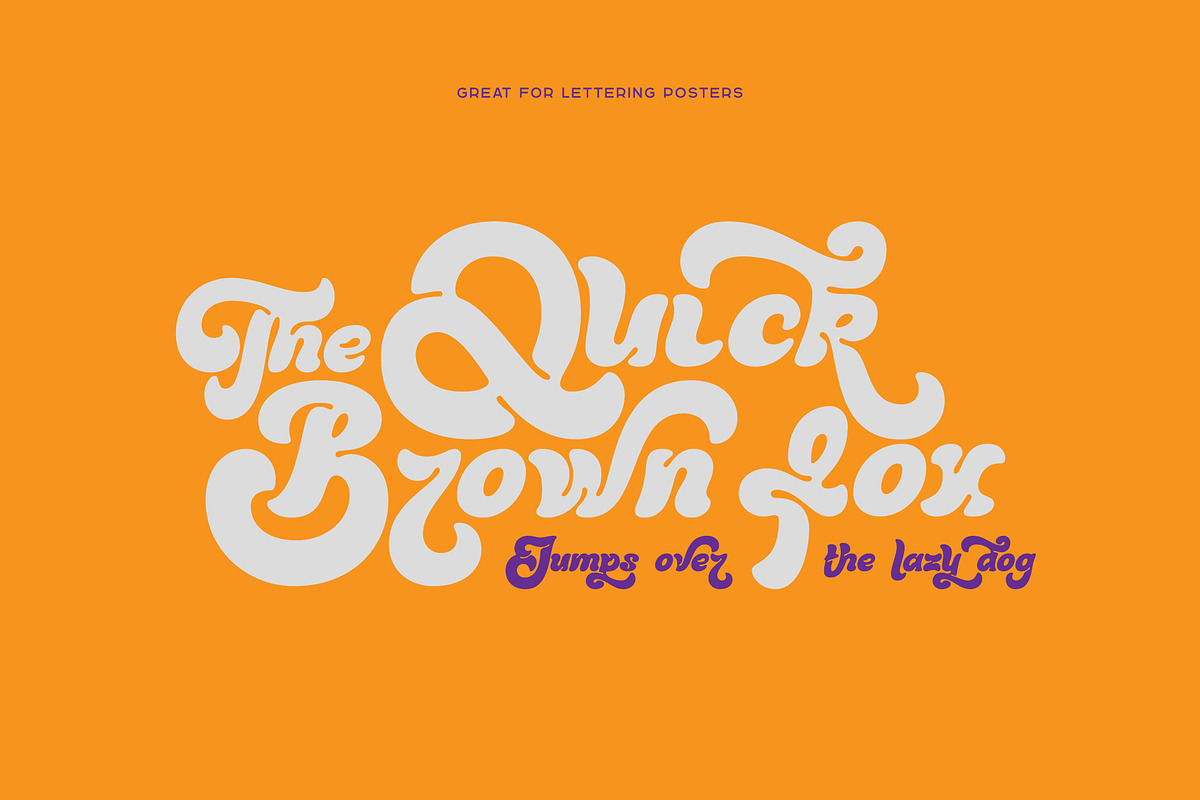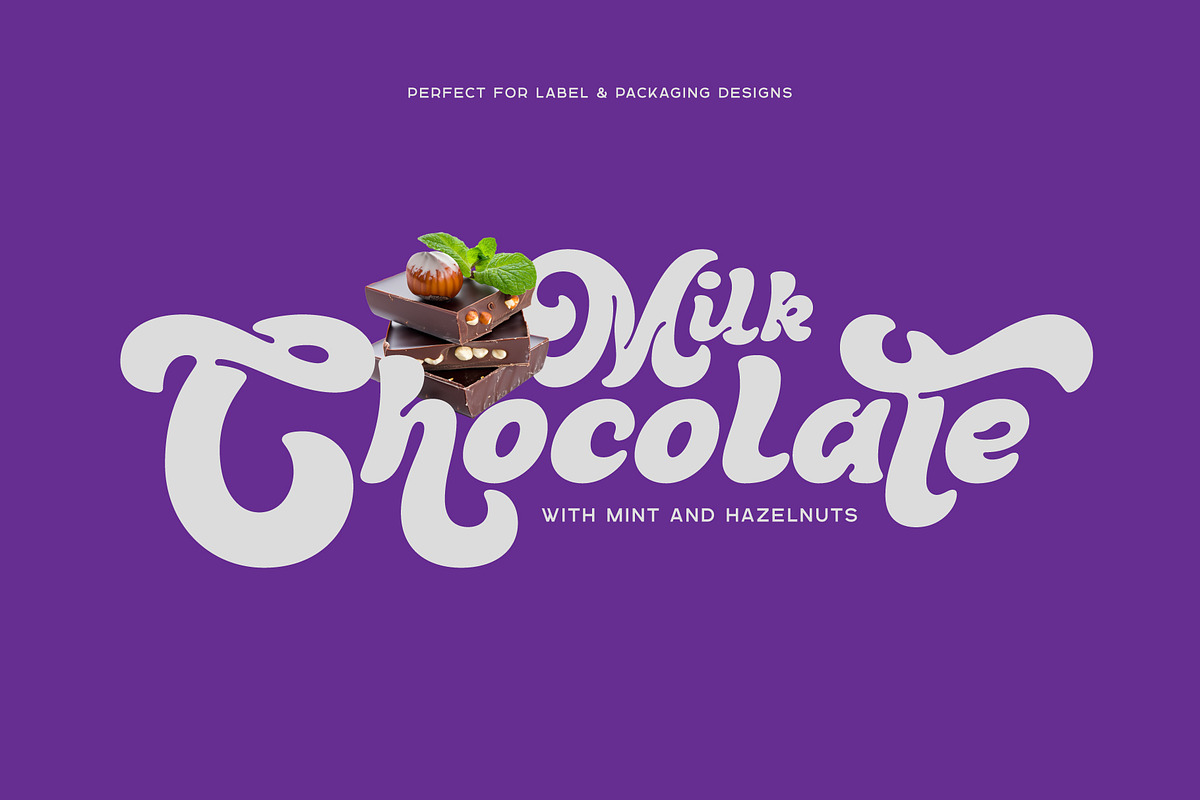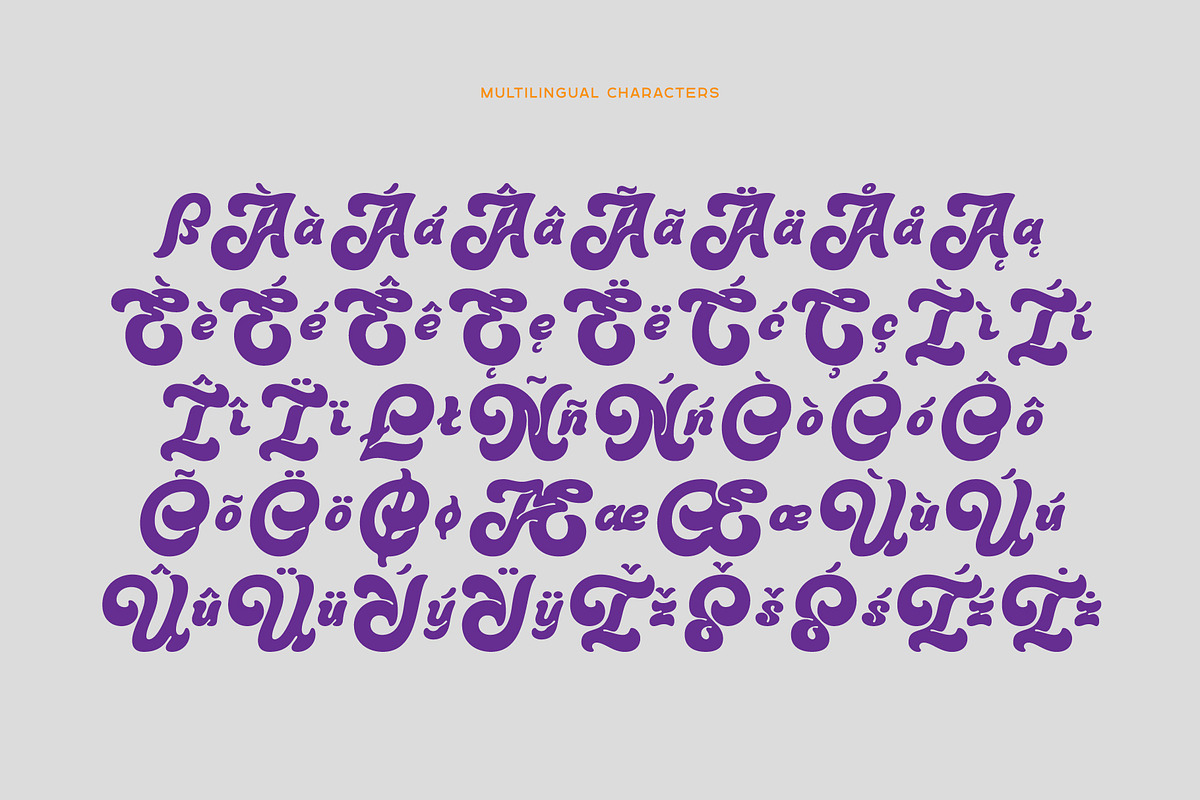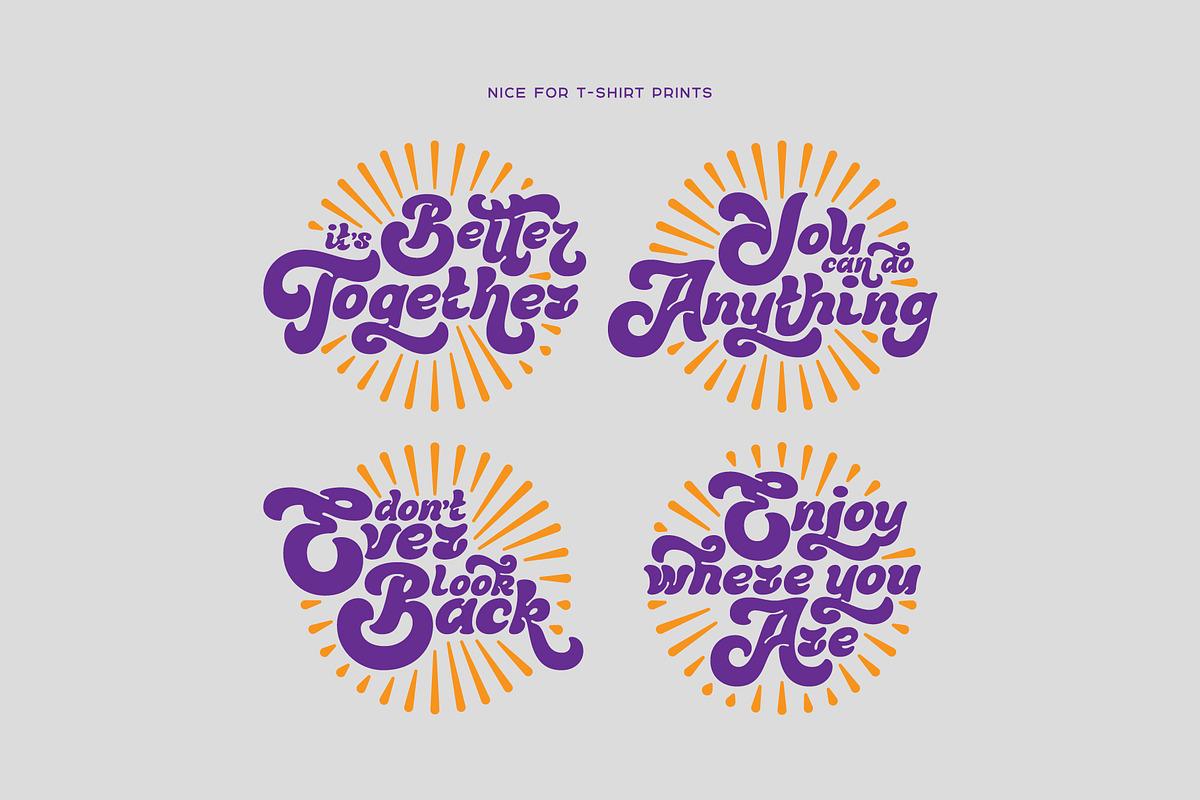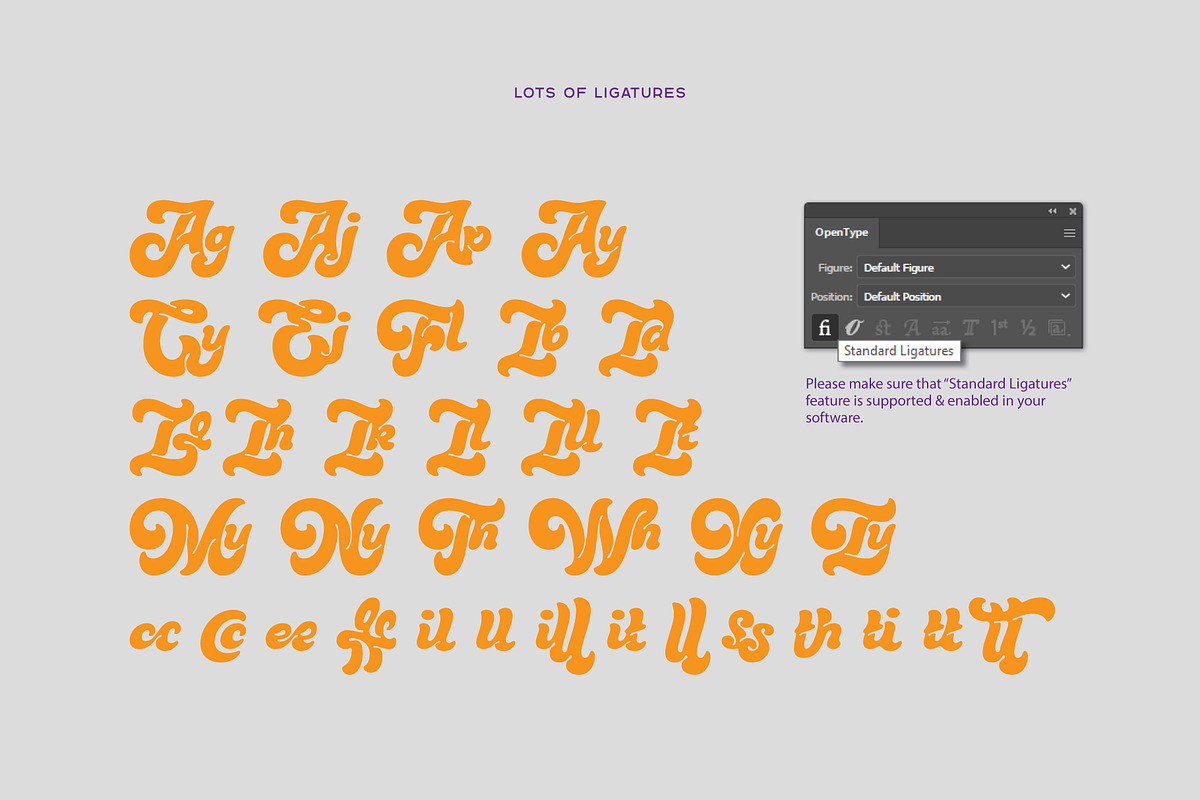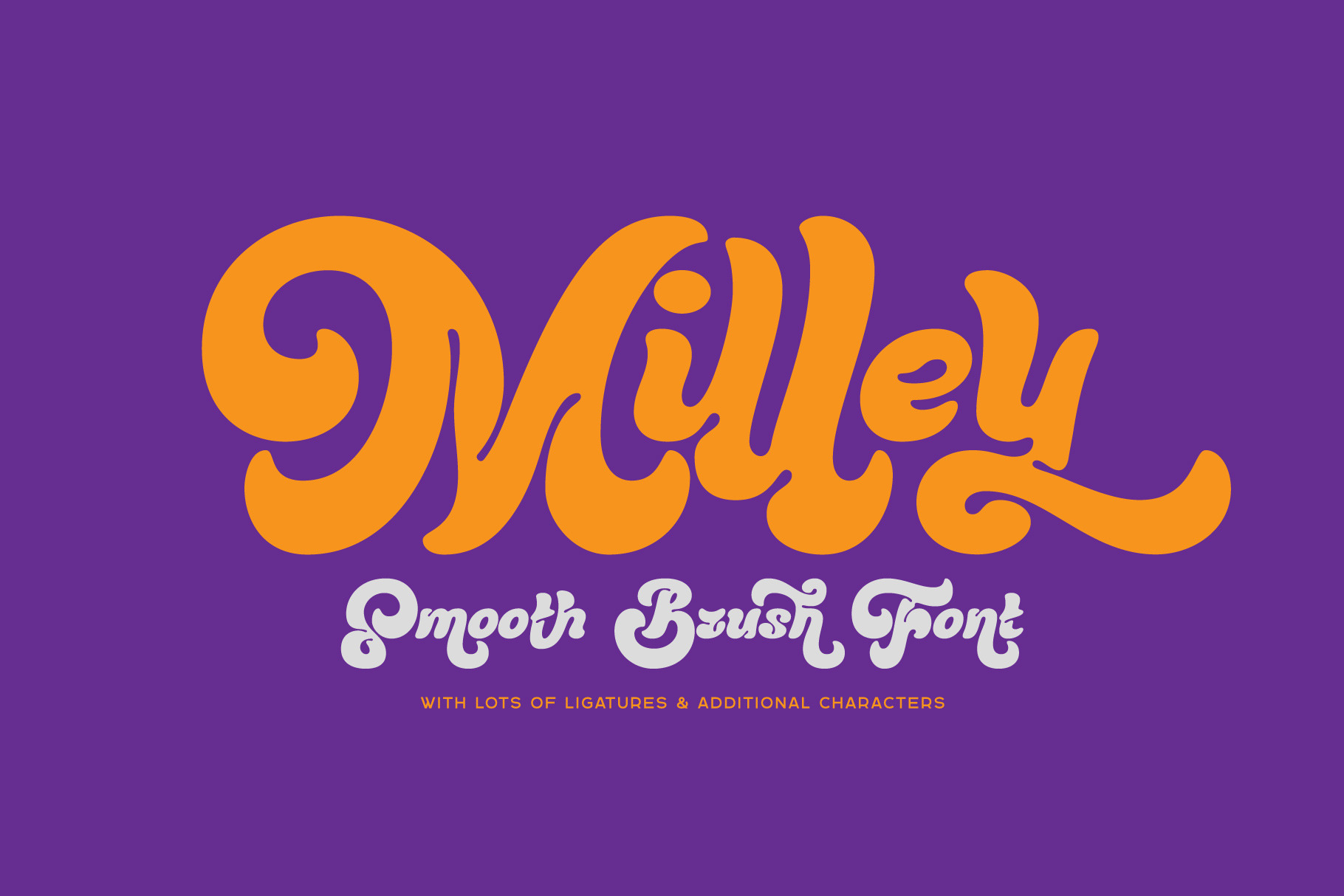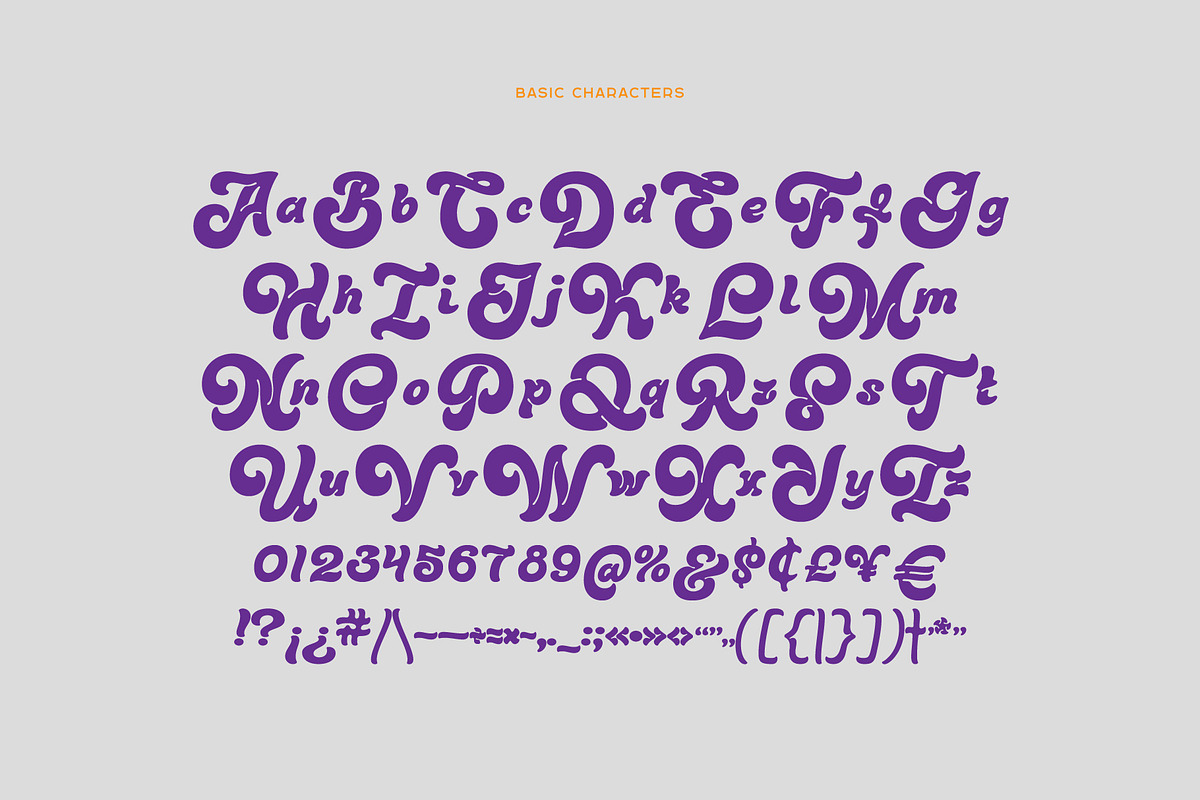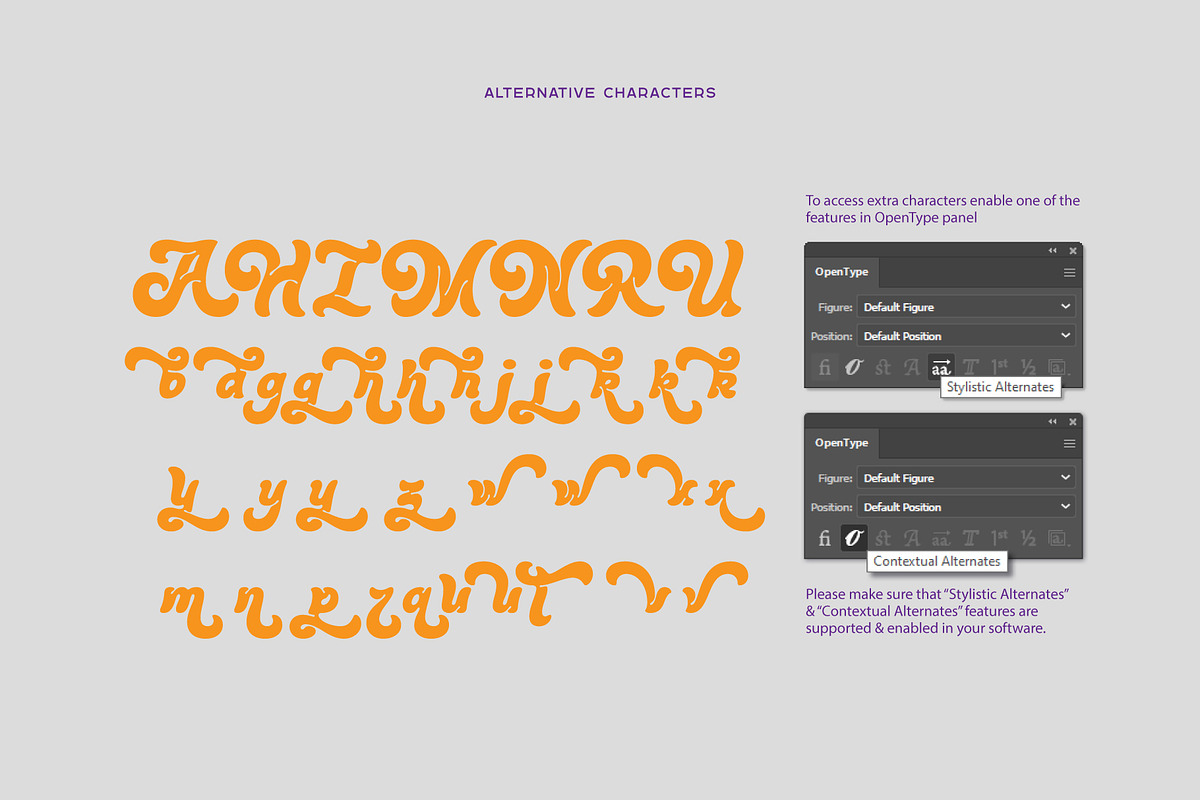
Milley — Smooth Brush Font
Hello! Presenting a nice brush style font — Milley. This typeface has a soft friendly shape that suits perfectly for packaging & label design. Lots of ligatures and extra glyphs will help you to create an original lettering compositions (please make sure that OpenType features are supported & enabled in your software). Milley font has multilingual support (check out a screenshot with available characters).